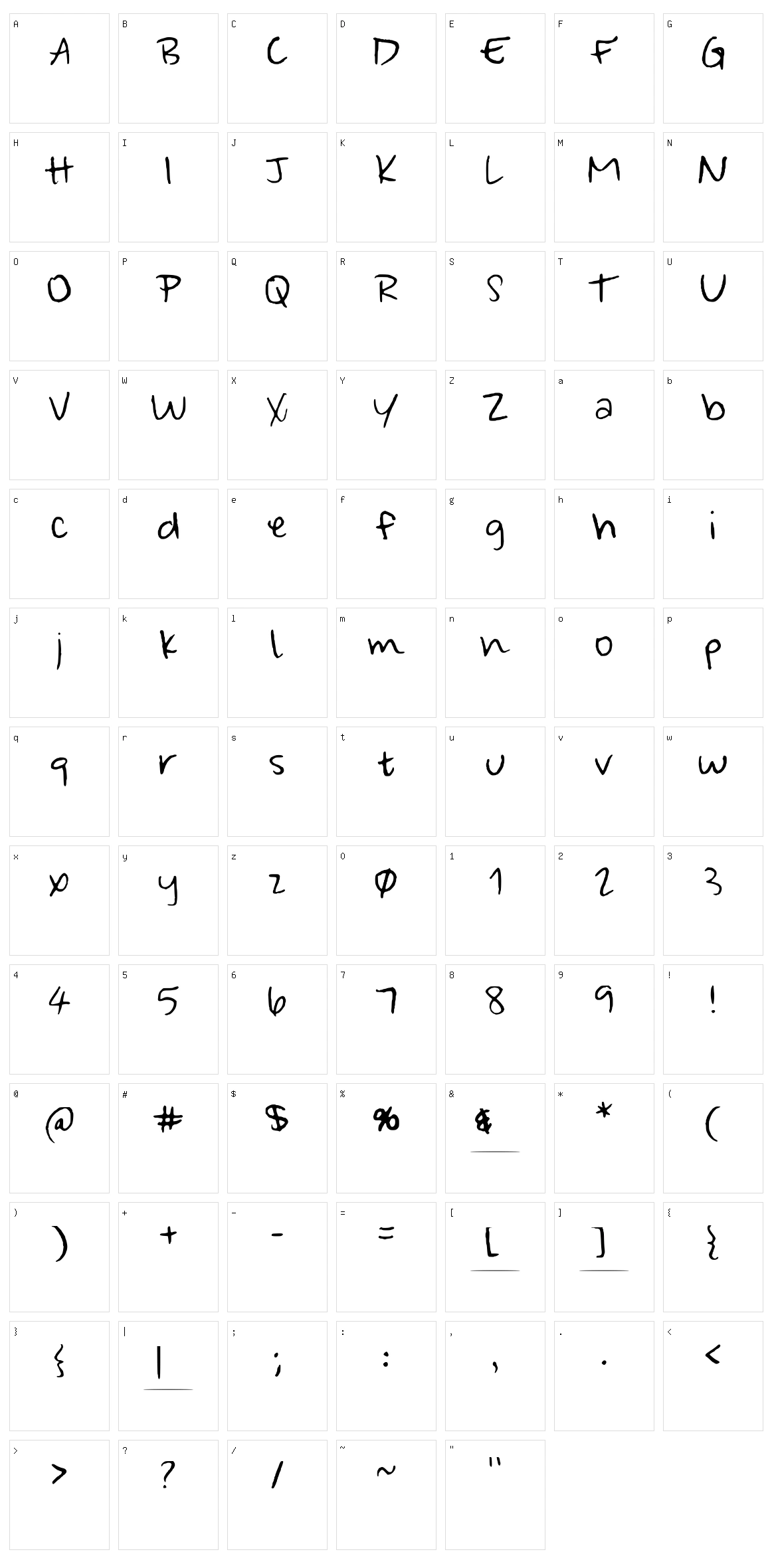
The free font Wonderfully Wandering is carefully designed by Elise Harper, showcasing a thoughtful balance of creativity and usability and falls under the Script font style. When you download the ZIP file, it contains only 17.5 KB of font files, making it lightweight and quick to download. Please review the license details below to understand permitted usage and distribution rights. If license information is not available, we recommend using this font for personal projects only or contacting the author directly for commercial usage permissions.